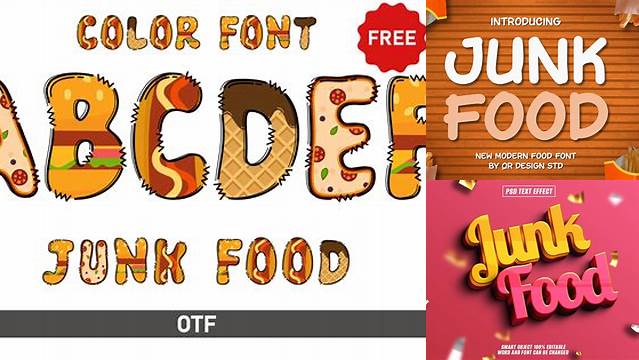
Free Junk Food Texture Font: Deliciously Unique Designs
Introduction: Craving a Unique Font?
Hey guys! Are you on the hunt for a font that's as unique and eye-catching as, well, a double-cheese burger with all the fixings? Then you've come to the right place! In this article, we're diving deep into the world of junk food texture fonts, a deliciously quirky design resource that can add a playful and attention-grabbing touch to your projects. We'll explore what these fonts are, where you can find them for free, and how to use them effectively to make your designs pop. So, grab your favorite snack, get comfy, and let's explore the wonderfully weird world of junk food fonts!
What Exactly is a Junk Food Texture Font?
Okay, so what exactly is a junk food texture font? It's not like someone literally carved letters out of a pizza (though, that would be pretty cool!). Instead, these fonts are designed to mimic the textures, shapes, and overall vibe of our favorite guilty pleasures. Think about the bubbly, melted cheese on a pizza, the crispy, crinkled edges of a potato chip, or the smooth, creamy swirl of an ice cream cone. A junk food texture font aims to capture those visual elements and translate them into letterforms. The beauty of these fonts lies in their ability to evoke a specific feeling or association. They instantly conjure up images of fun, indulgence, and maybe even a little bit of nostalgia for those childhood treats. These typefaces are more than just letters; they are visual representations of the textures and shapes we associate with junk food. Each character is carefully crafted to embody the essence of a particular snack or treat, whether it's the crumbly texture of a cookie or the gooeyness of a melted candy bar. This level of detail makes junk food texture fonts incredibly versatile for projects that aim to evoke a sense of fun, nostalgia, or even a bit of decadence. Imagine the impact of using a font that looks like it's made of dripping chocolate on a poster for a dessert festival, or a typeface that resembles the bubbly surface of soda on a flyer for a summer barbecue. The possibilities are endless, and the unique visual appeal of junk food texture fonts is sure to capture the attention of your audience.
Why Use a Junk Food Texture Font?
Now, you might be thinking, “Why would I ever use a junk food texture font?” Great question! These fonts aren't for every project, but they can be incredibly effective in specific situations. Imagine you're designing a poster for a local pizzeria, a flyer for a funfair, or a website for a candy store. A junk food texture font can instantly convey a sense of playfulness, energy, and deliciousness. They're perfect for grabbing attention and creating a memorable visual experience. They can be used effectively for a variety of projects beyond just food-related themes. For example, they can add a touch of whimsy to children's book covers, event posters, or even social media graphics. The key is to use them strategically and sparingly. A little bit of junk food font can go a long way in adding personality and visual interest to your designs. When used correctly, these fonts can become a powerful tool for creating a strong brand identity and memorable marketing materials. They can help your message stand out from the clutter and leave a lasting impression on your audience. Think about the visual impact of a logo designed with a font that resembles the frosting on a cupcake – it instantly communicates a sense of sweetness and indulgence. Or consider a website banner that uses a font that looks like it's made of crispy bacon – it's sure to grab the attention of visitors and make them hungry for more. These are just a few examples of how junk food texture fonts can be used to create visually compelling and memorable designs.
Where to Find Free Junk Food Texture Fonts
Top Free Junk Food Texture Fonts
Let's get specific, guys! Here are some examples of free junk food texture fonts you might encounter:
- Meltdown: A font that looks like it's made of melting ice cream or gooey chocolate.
- Crumbly: A font with a rough, textured surface, perfect for evoking cookies or crackers.
- Bubbly: A font that resembles the fizzy texture of soda or sparkling beverages.
- Cheesy: A font with a melted, cheesy texture, ideal for pizza or nacho-themed designs.
- Candy Coated: A font with a smooth, shiny, and colorful texture, perfect for candy or sweets.
These are just a few examples, and the specific names and styles may vary depending on the website or designer. The key is to experiment and find a font that perfectly captures the visual essence of your project. Remember to consider the overall tone and message of your design when choosing a junk food texture font. A font that looks like it's made of dripping chocolate might be perfect for a dessert menu, but it might not be the best choice for a health food blog. Similarly, a font with a rough, crumbly texture might be ideal for a bakery advertisement, but it might not be suitable for a formal invitation. By carefully selecting the right font, you can ensure that your design effectively communicates its intended message and resonates with your target audience. In addition to the examples listed above, there are many other free junk food texture fonts available online. Some fonts might mimic the texture of specific foods, such as popcorn, donuts, or even bacon. Others might be more abstract, capturing the overall feeling of indulgence and fun associated with junk food. The best way to find the perfect font for your project is to explore different options and experiment with different styles. Don't be afraid to try something new and unexpected – you might just discover a hidden gem that elevates your design to the next level.
How to Use Junk Food Texture Fonts Effectively
Now that you've got your hands on some awesome junk food fonts, let's talk about how to use them effectively. Here are a few tips to keep in mind:
1. Use Sparingly
Junk food texture fonts are best used as accent fonts, not for large blocks of text. They're great for headlines, logos, or short phrases, but using them for body copy can be overwhelming and difficult to read. Think of them as the sprinkles on a cupcake – a little goes a long way! Overusing a junk food texture font can quickly make your design look cluttered and unprofessional. The unique and attention-grabbing nature of these fonts means that they're most effective when used sparingly and strategically. By limiting their use to key elements like headings, logos, or call-to-action buttons, you can create a visual hierarchy that draws the viewer's eye to the most important information. Imagine a poster for a pizza restaurant – using a cheesy texture font for the headline “Best Pizza in Town” can instantly grab attention and convey the deliciousness of the food. However, using the same font for the entire menu description would make it difficult to read and detract from the overall impact of the design. The key is to strike a balance between visual interest and readability. Choose a simpler, more legible font for the body text and reserve the junk food texture font for elements that you want to emphasize. This will ensure that your design is both visually appealing and easy to understand. In addition to limiting the amount of text, you should also consider the size and placement of the junk food texture font. Using a large, bold font for a small element can overwhelm the design, while using a small, delicate font for a large element can make it difficult to read. Experiment with different sizes and placements to find the right balance for your project.
2. Pair with a Simple Font
Since junk food texture fonts are so visually loud, it's important to pair them with a simple, clean font for body text or supporting elements. A classic sans-serif font like Helvetica or Arial, or a simple serif font like Times New Roman, can provide a nice contrast and ensure readability. Think of it like balancing a rich dessert with a refreshing drink – the simple font helps to ground the design and prevent it from becoming too overwhelming. Pairing a junk food texture font with another equally decorative font can create a visual cacophony that is difficult to read and understand. The goal is to create a harmonious design that is both visually appealing and functional. By choosing a simple font for the body text, you allow the junk food texture font to shine without competing for attention. This creates a clear visual hierarchy that guides the viewer's eye through the design. When selecting a simple font, consider the overall tone and style of your project. A classic serif font like Times New Roman might be a good choice for a more formal design, while a modern sans-serif font like Helvetica or Arial might be better suited for a more casual or contemporary project. The key is to choose a font that complements the junk food texture font and enhances the overall message of your design. In addition to choosing a simple font for the body text, you can also use simple design elements like lines, shapes, and colors to create a visual contrast. This can help to further highlight the junk food texture font and make it stand out even more. For example, you might use a solid background color to make the textured font pop, or you might use a simple line to separate the headline from the body text.
3. Consider the Color Palette
The colors you use can significantly impact the overall feel of your design. With junk food texture fonts, it's often best to stick to bright, playful colors that evoke the same sense of fun and indulgence as the font itself. Think about the colors you associate with junk food – reds, yellows, oranges, and pinks are all great choices. However, be careful not to overdo it! Too many bright colors can be overwhelming, so try to balance them with some neutral tones. Colors play a crucial role in conveying the mood and message of your design, and the right color palette can enhance the visual impact of a junk food texture font. When choosing colors, consider the specific food that the font is meant to represent. For example, a cheesy texture font might look best in shades of yellow and orange, while a candy-coated font might work well with a vibrant mix of pinks, purples, and blues. It's also important to consider the overall tone and style of your project. If you're designing a poster for a children's party, you might want to use a brighter and more playful color palette than if you're designing a logo for a gourmet dessert company. Experimenting with different color combinations can help you find the perfect palette for your project. Try using a color wheel or online color palette generator to explore different options and see how they work together. Remember to consider the contrast between the font color and the background color to ensure readability. A light font on a light background or a dark font on a dark background can be difficult to read, so it's important to choose colors that provide sufficient contrast. In addition to the main colors of your design, you should also consider the use of accents and highlights. A small pop of color in a key area can draw the viewer's eye and add visual interest to your design.
Conclusion: Indulge in Creative Typography
So there you have it, guys! Junk food texture fonts can be a super fun and effective way to add a unique touch to your designs. Just remember to use them sparingly, pair them with a simple font, consider your color palette, and always think about the context. With a little creativity, you can use these delicious fonts to create designs that are both eye-catching and memorable. Now go forth and create something awesome! Experiment with different junk food texture fonts and discover how they can transform your designs. Don't be afraid to push the boundaries and try new things. The world of typography is vast and exciting, and there's always something new to learn. By exploring different font styles and techniques, you can develop your own unique design aesthetic and create work that is both visually stunning and effective. Remember that design is a process of trial and error. Not every font will work for every project, and it's okay to experiment and make mistakes. The key is to learn from your mistakes and keep pushing yourself to improve. With practice and dedication, you can master the art of typography and create designs that truly stand out. So go ahead, indulge in creative typography and let your imagination run wild! The possibilities are endless, and the only limit is your own creativity.